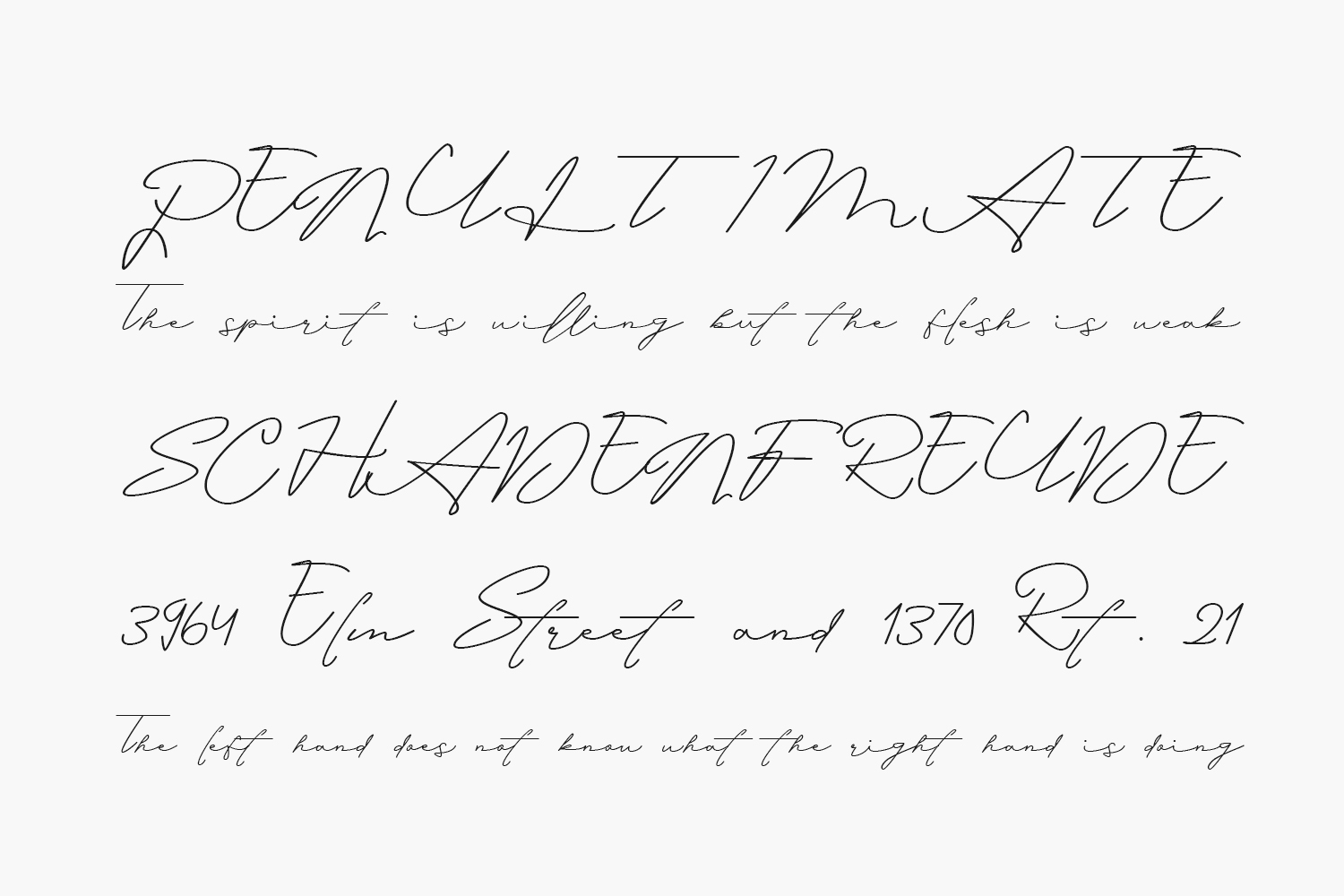
Alexandria Rose Free Font is a thin and elegant script font. It’s perfect for greeting cards, branding materials, wedding invitations, business cards, quotes, posters, and every other design which needs to look upscale and chic. Alexandria Rose Free Font was designed by Beautypes and is free for personal use only. Please purchase the full version for commercial use.